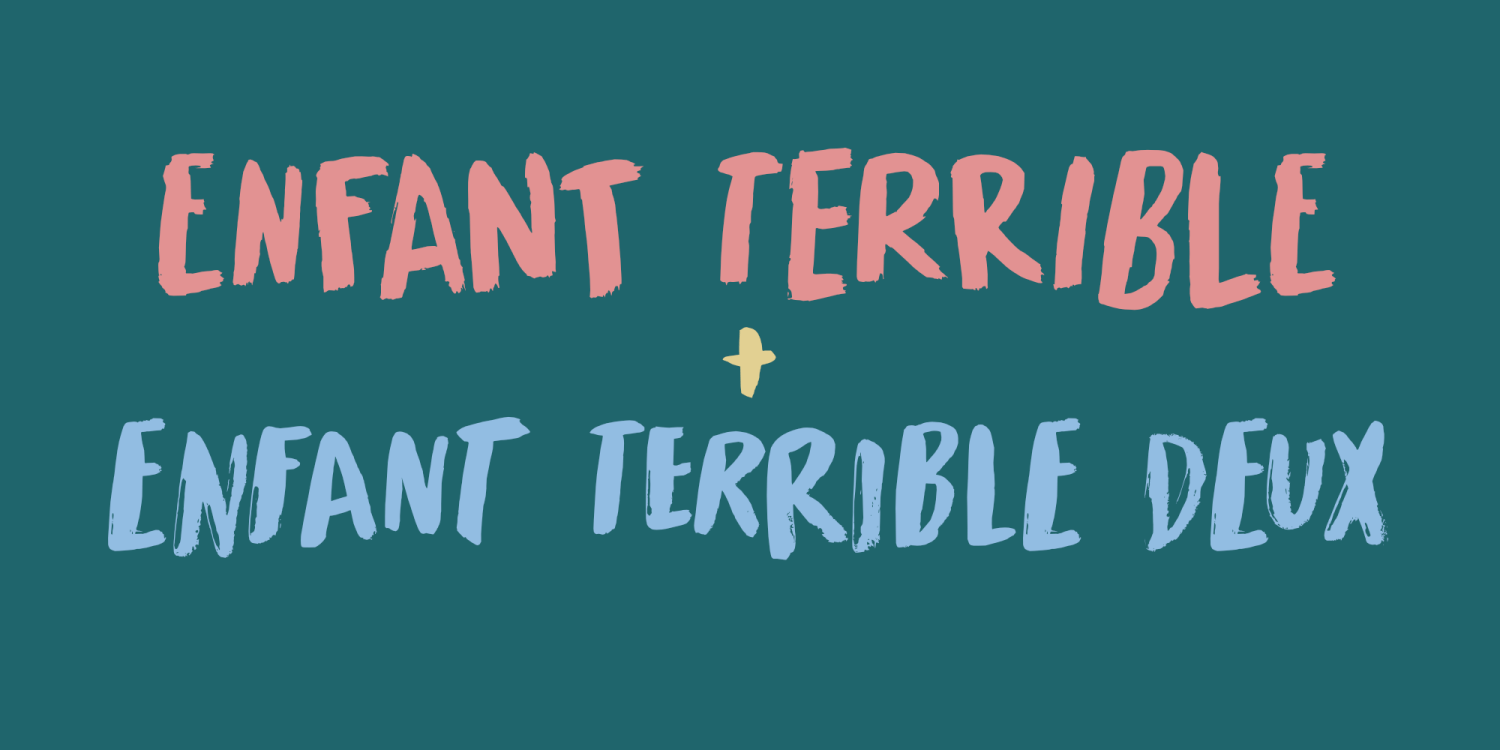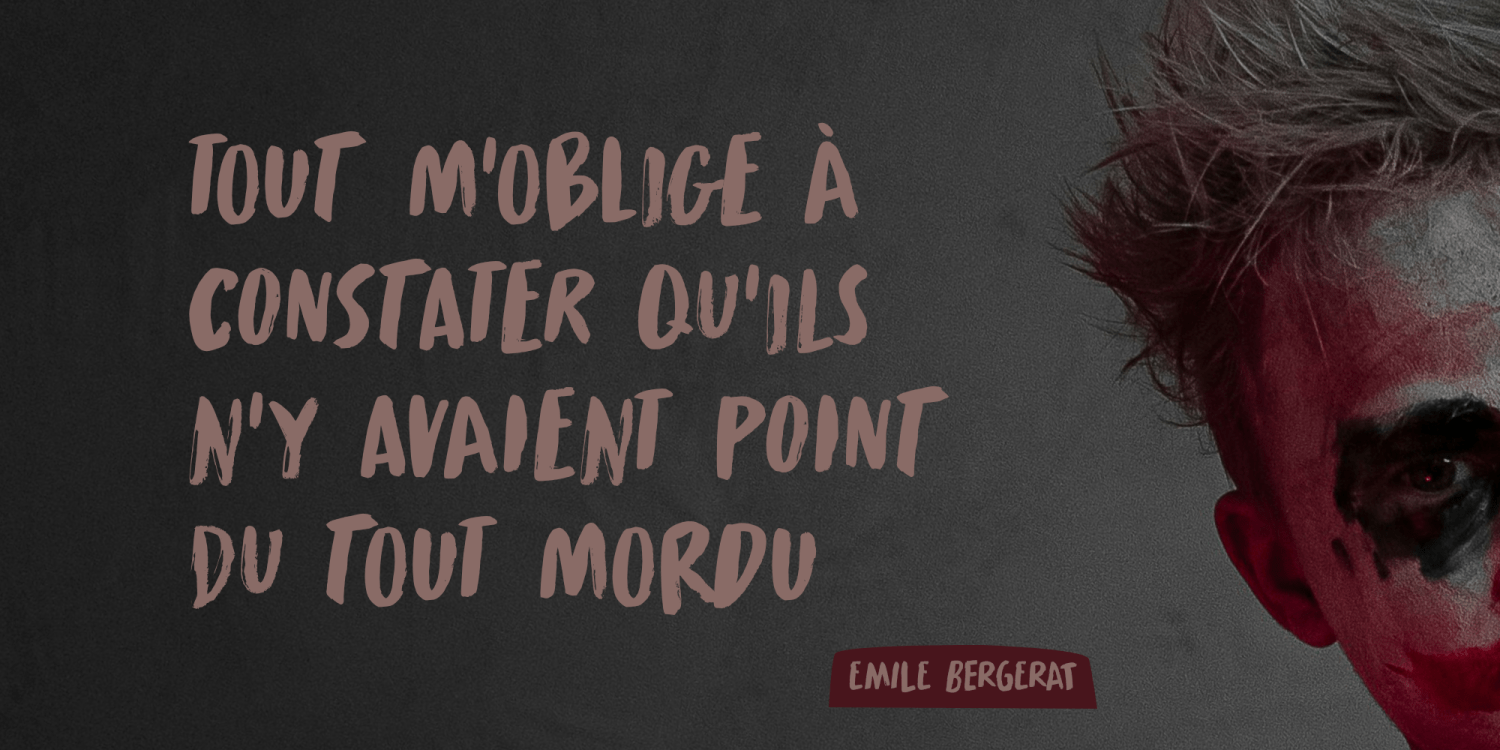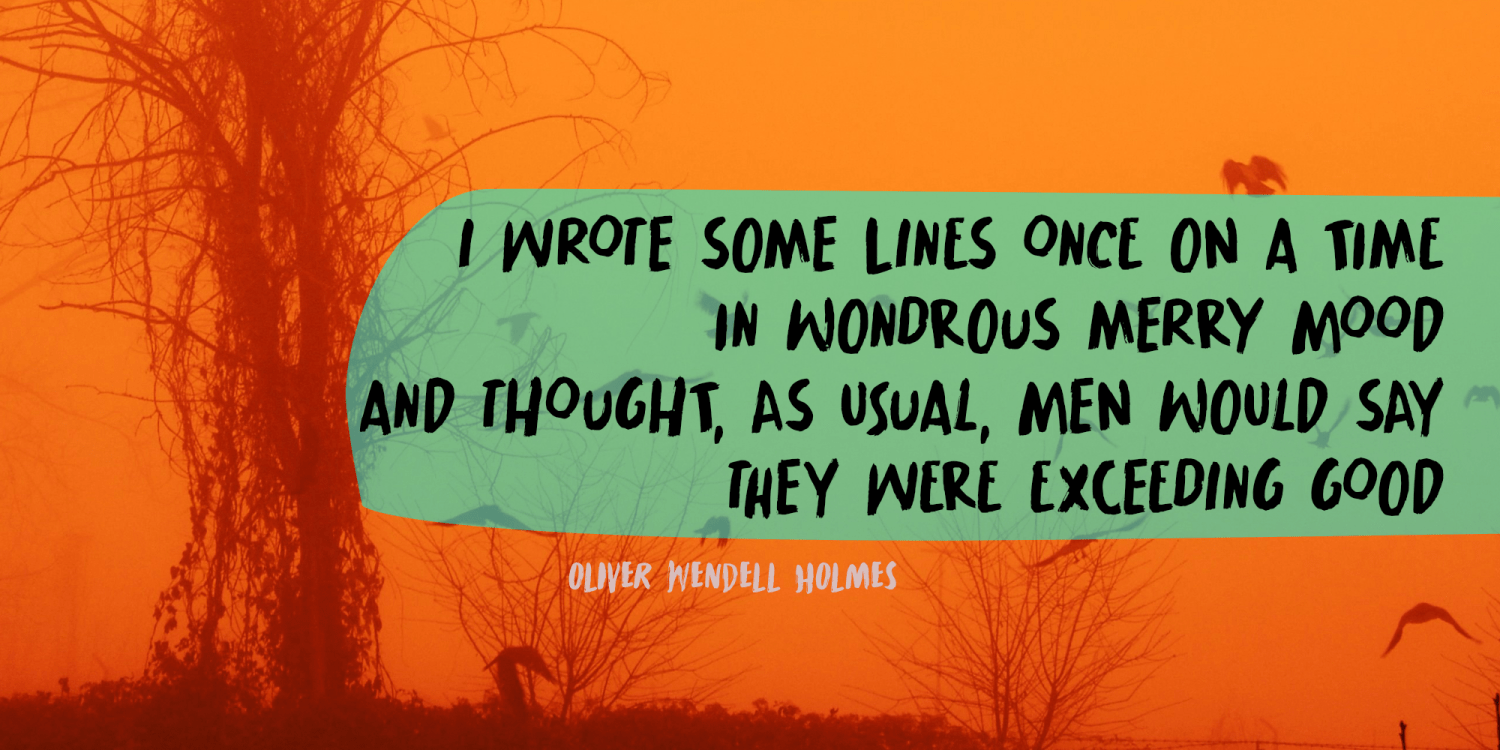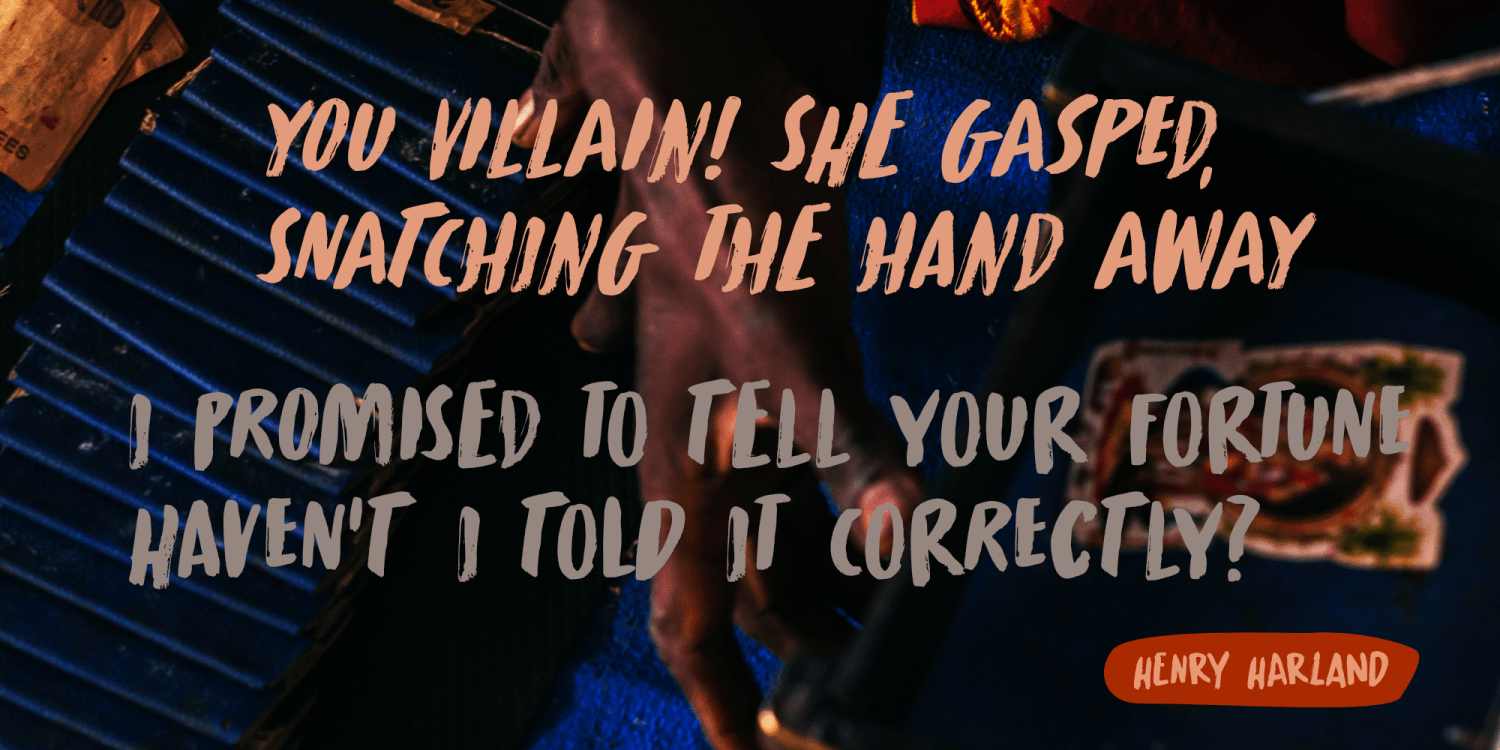
Enfant Terrible
Enfant Terrible doesn’t toe the line. It has its own idea of how things should be! This handmade font family embraces the beauty of imperfection — raw strokes, jagged edges, and a restless energy that refuses to sit still. Enfant Terrible feels slightly eerie, a little unpredictable, yet is undeniably clear and readable. Whether you need a font for bold, kick butt packaging, intriguing album art or expressive book covers that invite browsers to read the stories - Enfant terrible’s got you covered! Radical yes - boring, never!
Enfant Terrible by Hanoded